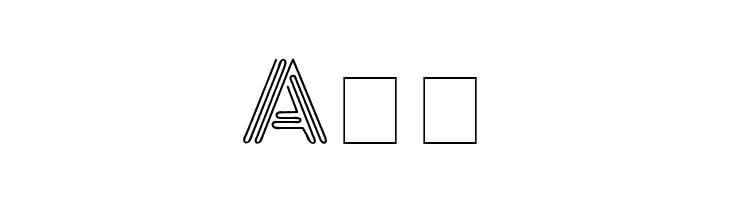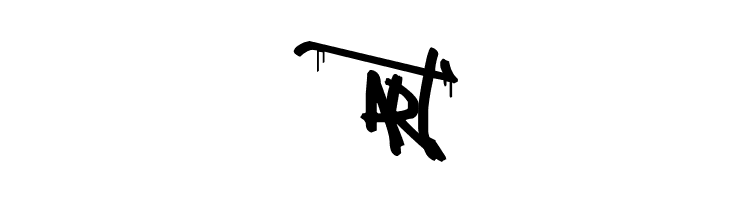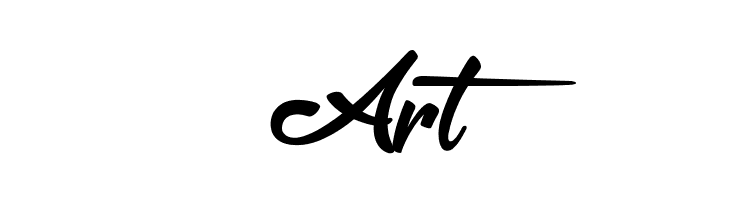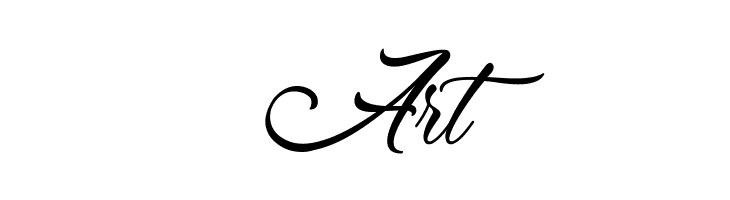
A playful, bold, and hand-drawn font with a whimsical touch.
A classic, elegant script font with flowing, cursive letterforms.
An elegant cursive script font with ornate flourishes and graceful loops.
A fluid, cursive script font with a natural handwriting style.
A casual, handwritten font with a playful and dynamic style.
A bold, playful font with irregular, hand-drawn letterforms.
A bold, condensed font with a playful, hand-drawn style.
A bold, playful font with thick, exaggerated curves and a whimsical style.